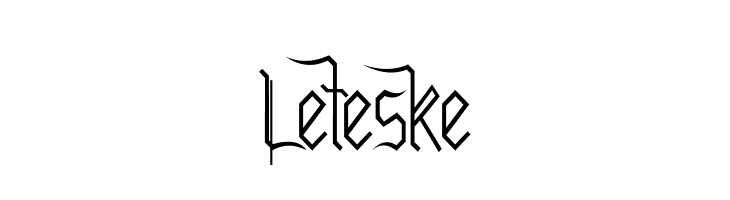
An ornate, Gothic-inspired font with sharp, angular edges and decorative flourishes.
A bold, playful font with rounded, smooth edges and a whimsical style.
A playful, elegant script font with a handwritten touch.
A bold, graffiti-inspired font with sharp, angular lines and intricate detailing.
A casual, handwritten font with a playful and informal style.
A modern, monospaced font ideal for coding and technical documentation.
A bold, modern sans-serif font with clean lines and excellent readability.
A festive, decorative font styled like Christmas light bulbs, perfect for holiday-themed projects.
A playful, whimsical handwritten font with flowing strokes.